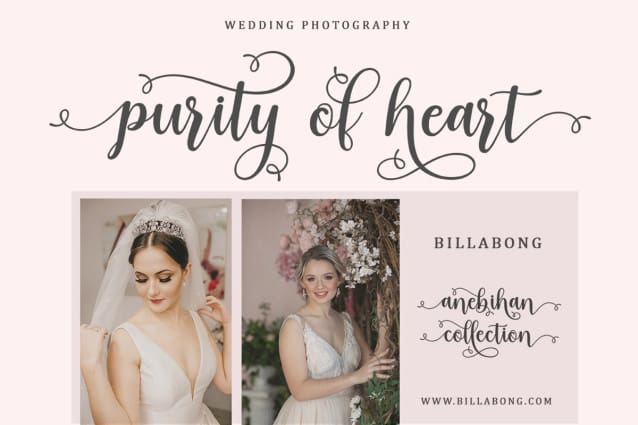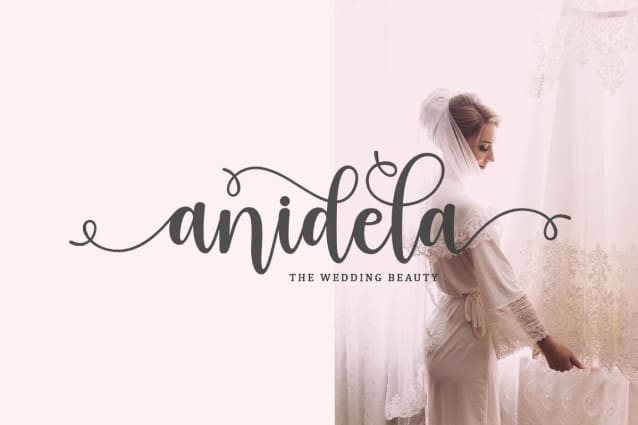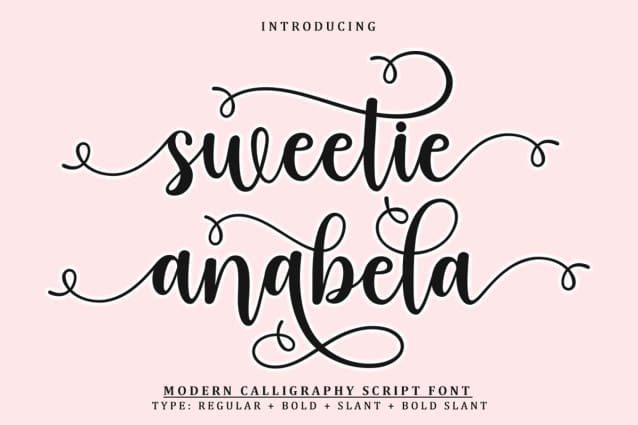
Sweetie Anabela Font
Sweetie Anabela Font is a very cute, elegant and unique handwritten font. Expertly designed to be a true favourite, this font has the potential to take your creative ideas to the highest level!
Sweetie Anabela is attractive because it is sleek, clean, feminine, sensual, glamorous, simple and very easy to read, thanks to its many luxurious lettering joints. I also offer a decent number of style alternatives for all letters. Classic style is very suitable to be applied in various formal forms such as invitations, labels, restaurant menus, logos, fashion, make up, stationery, novels, magazines, books, greeting/wedding cards, packaging, labels or all kinds of advertisements. for your purposes. . . .